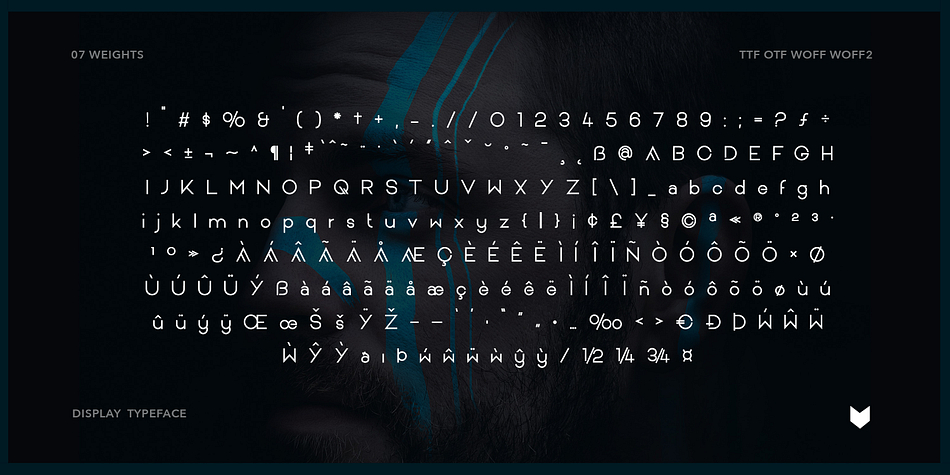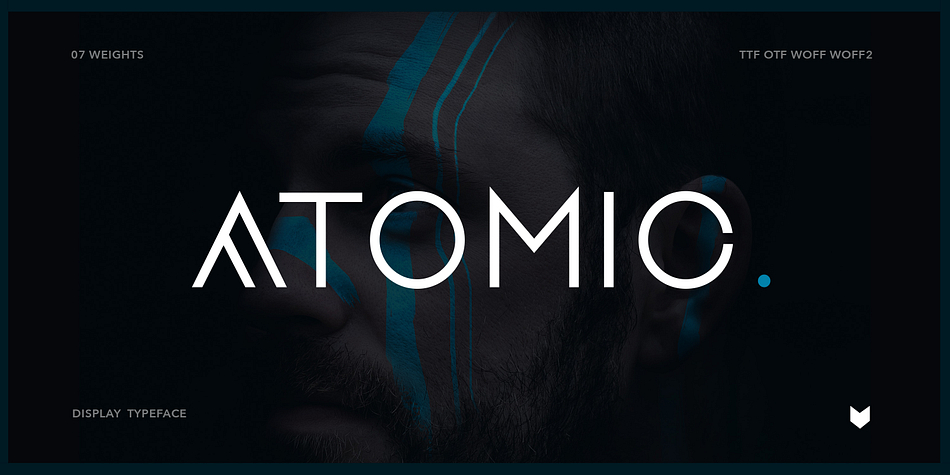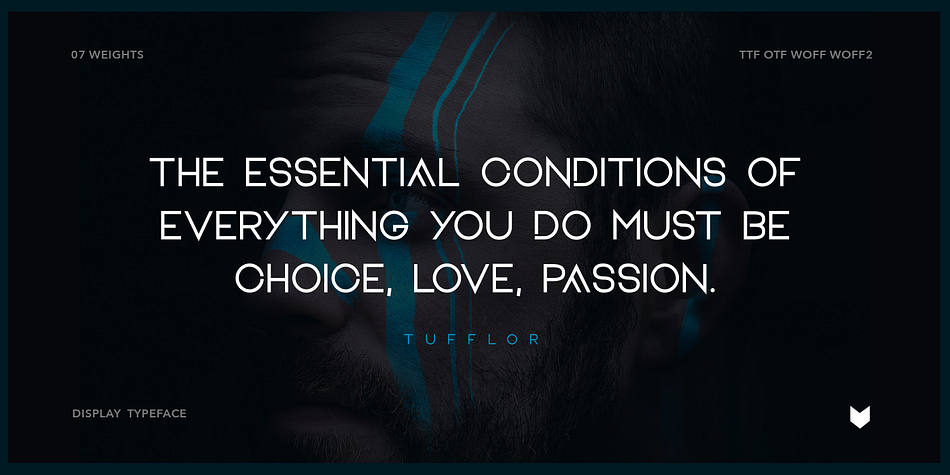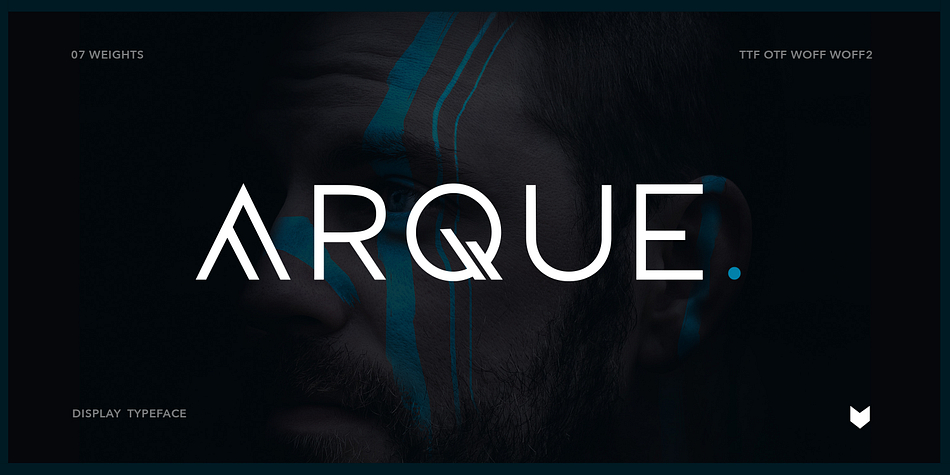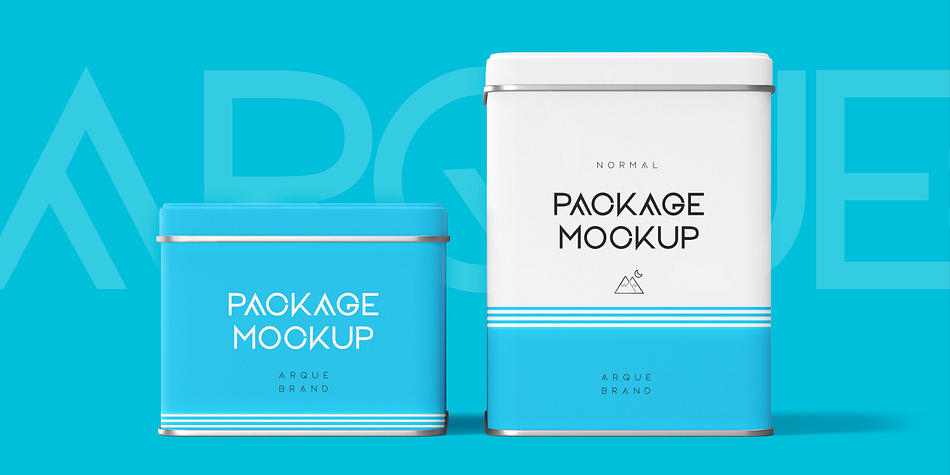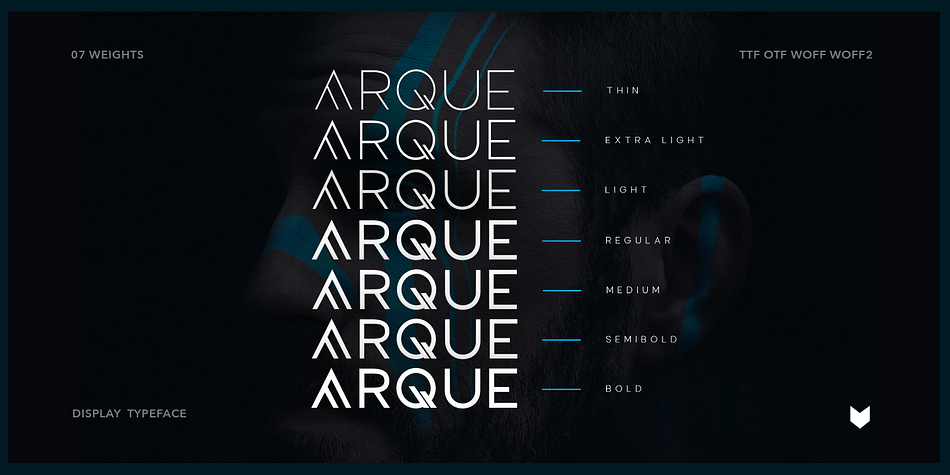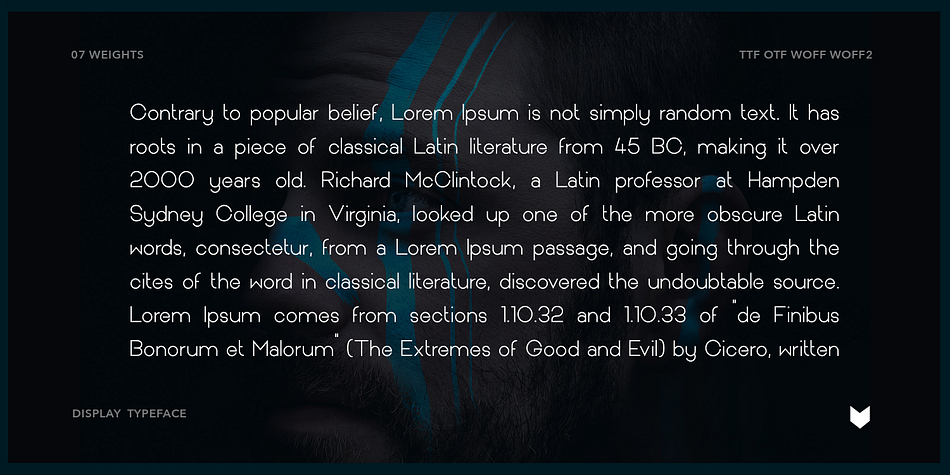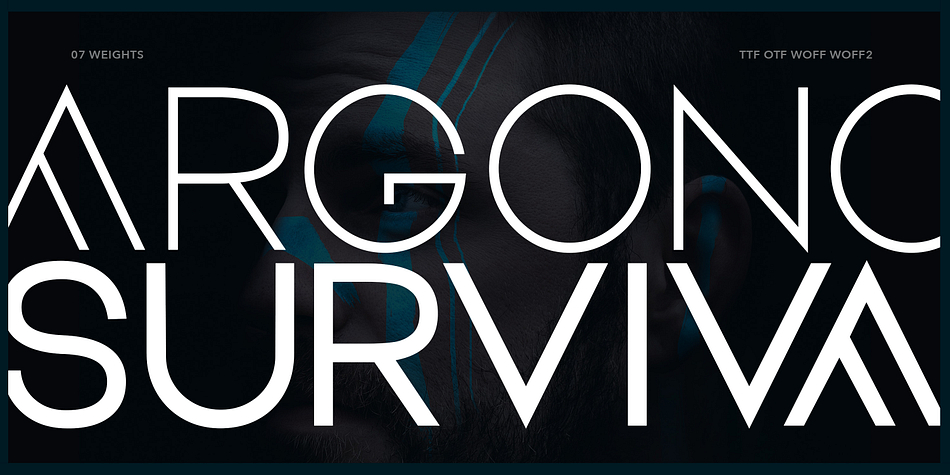
Arque Pro
Arque Pro is a display sans font family. This typeface has seven styles and was published by Foxtype.
Arque Display is a Unique Modern Elegant Typeface with Web-fonts. It’s a very versatile font that works great in large and small sizes. Arque Pro would perfect for branding, logos, headlines, Captions. or simply as a stylish text overlay to any background image. Strong capitals and a smooth, open lowercase are effective in a variety of applications. It’s shown a clean, minimalist, warmth, quirky, yet still purposed to be versatile and easy to read.